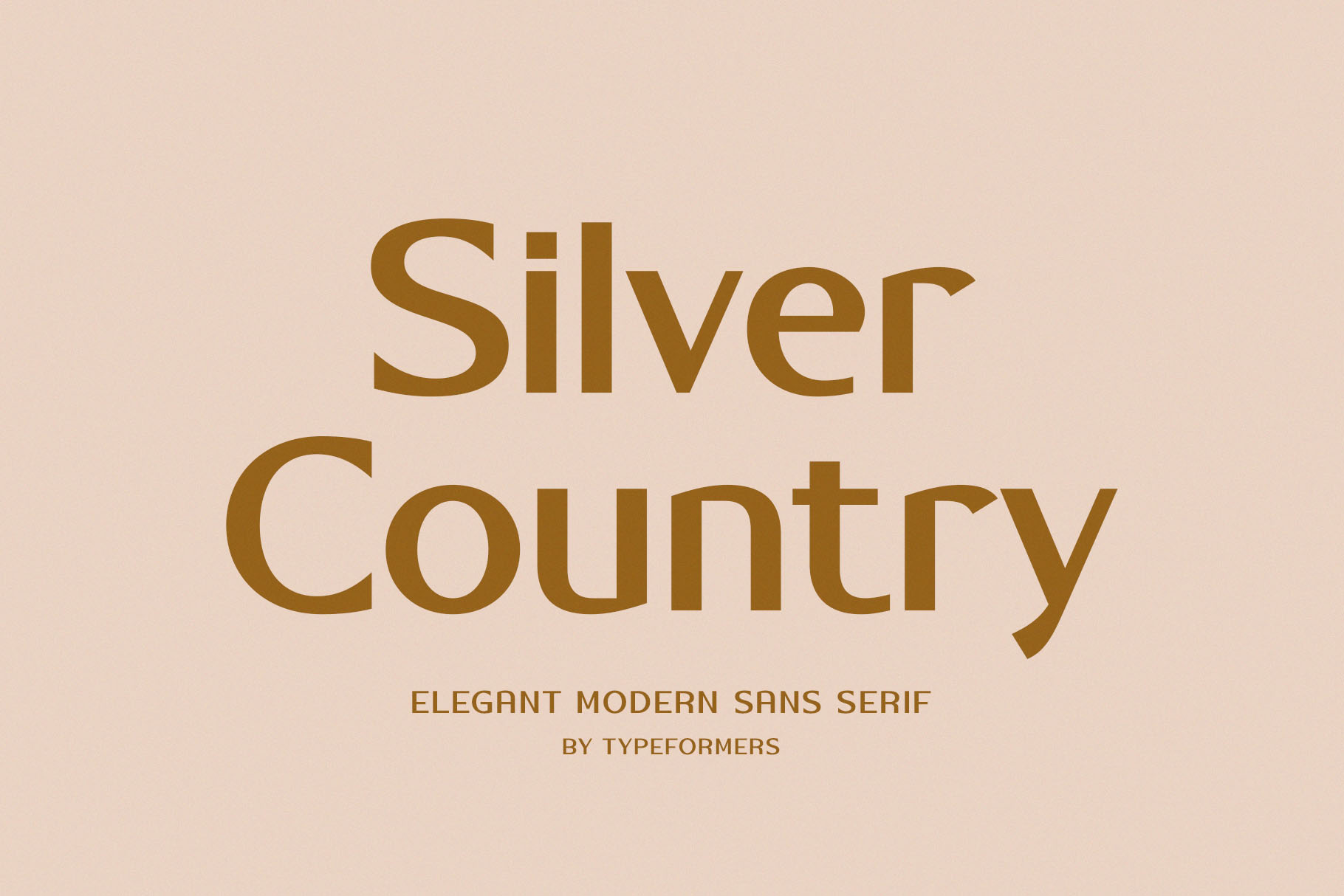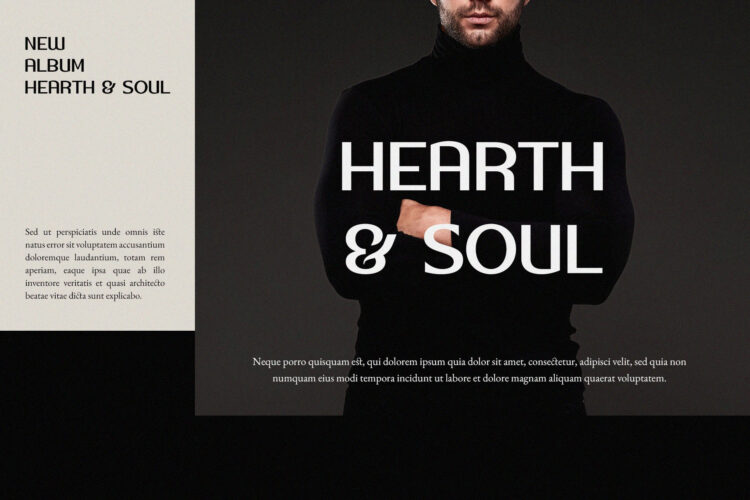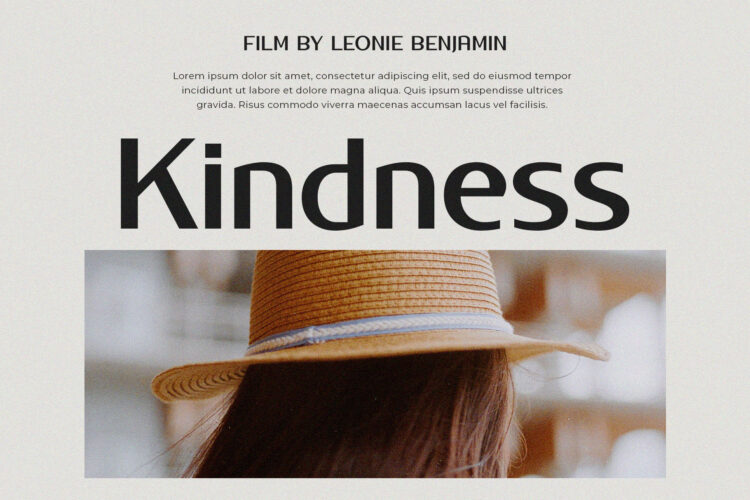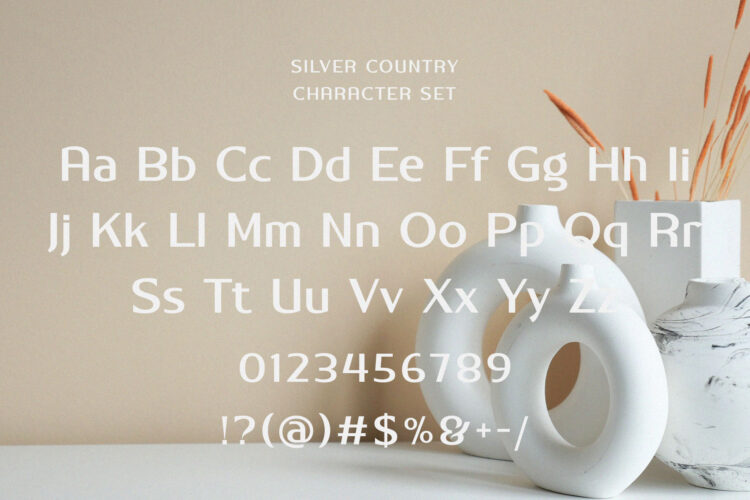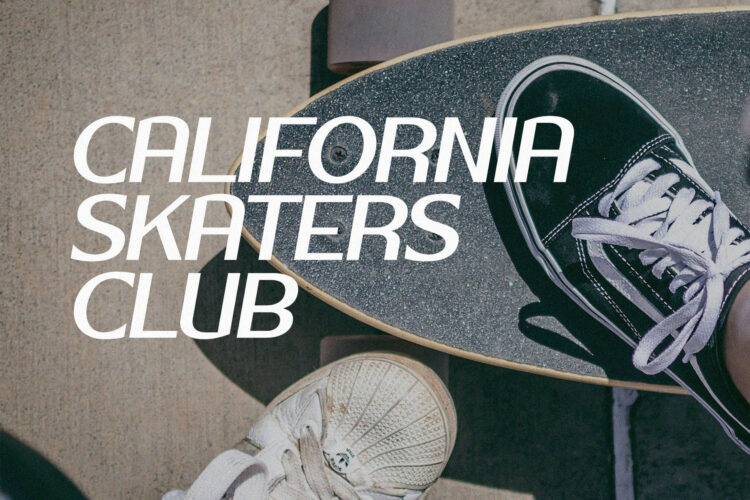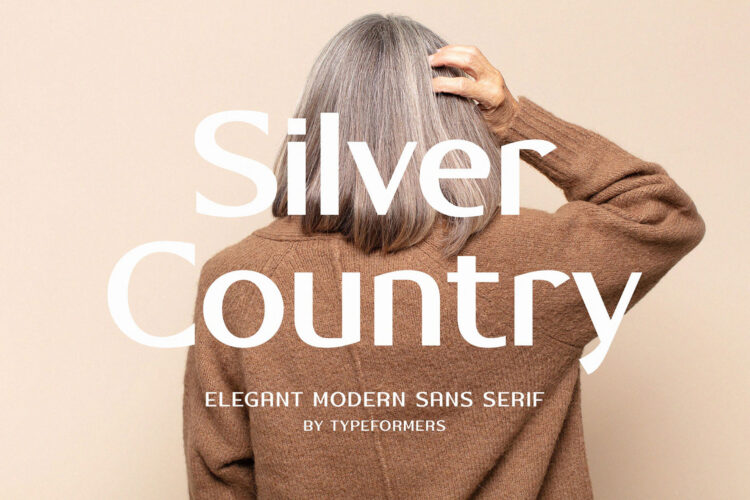
Introducing Silver Country – Elegant Modern Sans Serif.
Silver Country is a modern and simple font, best used as a display for headings, logos, branding, magazines, product packaging and invitations.